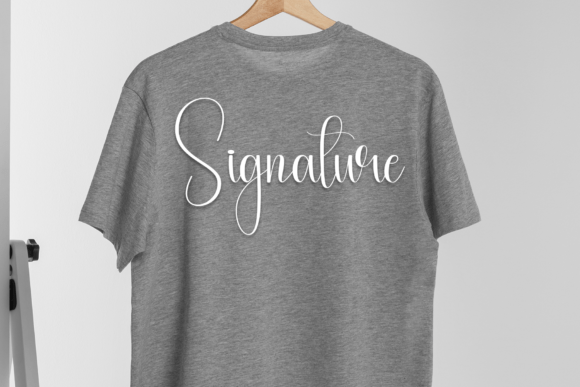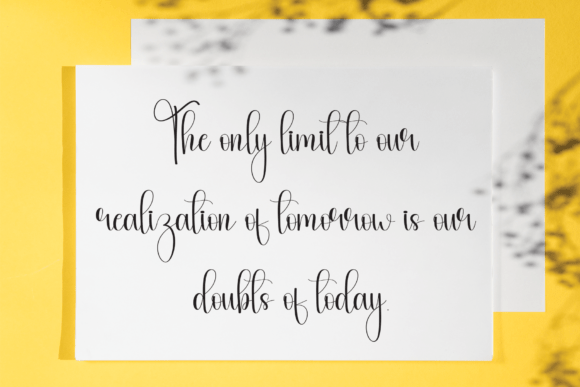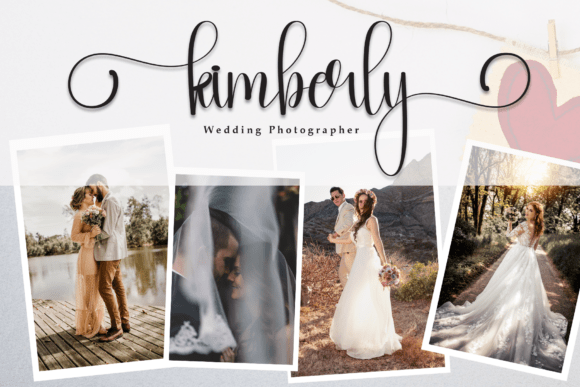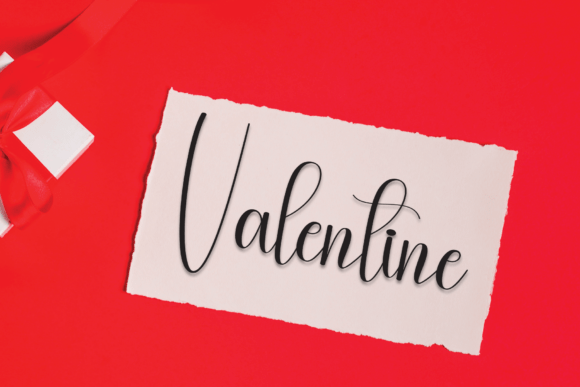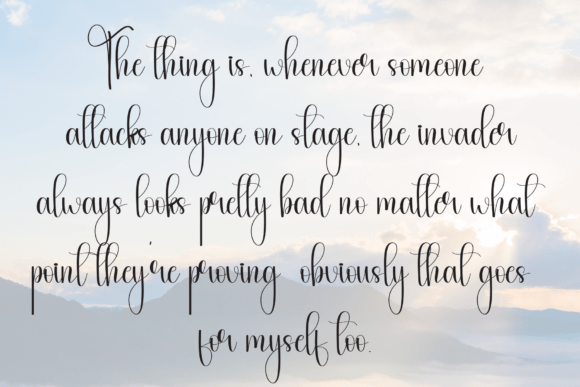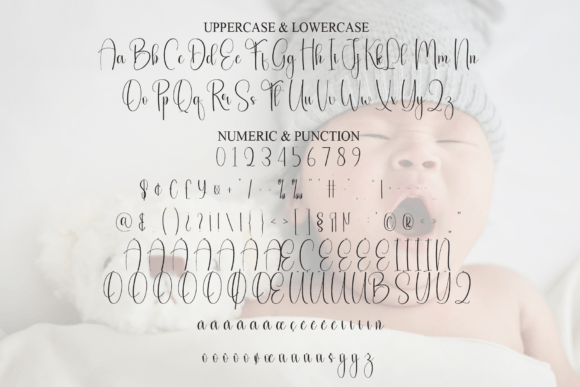
Baby Font: Elevate Your Designs with a Touch of Elegance and Whimsy
In the world of typography, fonts play a pivotal role in conveying the tone and personality of a design. Among the myriad of typefaces available, the Baby Font stands out as a stylish handwritten script font that seamlessly blends modern elegance with a playful touch. This versatile typeface is designed to bring a personal feel to any design, making it an ideal choice for a wide range of projects, from logos and packaging to invitations and more.
The Essence of Baby Font
Baby Font is characterized by its fluid strokes and charming curves, which work in harmony to create a visually appealing and distinctive look. This font’s modern elegance is perfectly balanced with a playful touch, allowing designers to add warmth, sophistication, and creativity to every project. Whether you’re aiming to create a luxurious brand identity or a whimsical invitation, Baby Font provides the perfect blend of style and charm.
Key Features of Baby Font
- Fluid Strokes: The font’s fluid strokes contribute to its elegant and sophisticated appearance, making it suitable for high-end designs.
- Charming Curves: The charming curves add a playful and whimsical touch, allowing designers to create unique and eye-catching designs.
- Versatility: Baby Font’s versatility makes it an excellent choice for various design projects, including logos, packaging, invitations, and more.
- Personal Feel: The font’s personal feel helps to establish an emotional connection with the audience, making designs more relatable and engaging.
Applications of Baby Font
Baby Font’s versatility and charm make it an excellent choice for a wide range of design applications. Here are some of the most popular uses of this beautiful typeface:
- Logo Design: Create a lasting impression with a custom logo that exudes elegance and sophistication.
- Packaging Design: Elevate your product packaging with a font that adds a touch of luxury and whimsy.
- Invitation Design: Make your invitations stand out with a font that combines modern elegance with a playful touch.
- Branding: Establish a strong brand identity with a typeface that reflects your brand’s personality and values.
Why Choose Baby Font?
In a world where design trends are constantly evolving, Baby Font offers a unique combination of style, elegance, and playfulness that sets it apart from other typefaces. Here are some reasons why designers and crafters choose Baby Font:
- Unique Style: Baby Font’s distinctive style helps designers create unique and memorable designs.
- Ease of Use: The font’s clean and elegant design makes it easy to read and use in various design applications.
- Customization: Baby Font can be easily customized to fit your brand’s personality and style.
Baby Font is a stylish handwritten script font that offers a perfect blend of modern elegance and playfulness. Its fluid strokes, charming curves, and versatile design make it an excellent choice for designers and crafters looking to add a personal touch to their designs. Whether you’re creating a logo, packaging, or invitation, Baby Font is sure to elevate your designs and leave a lasting impression on your audience.
With its unique style, ease of use, and customization options, Baby Font is an excellent addition to any designer’s toolkit. So why settle for ordinary fonts when you can add a touch of elegance and whimsy to your designs with Baby Font?